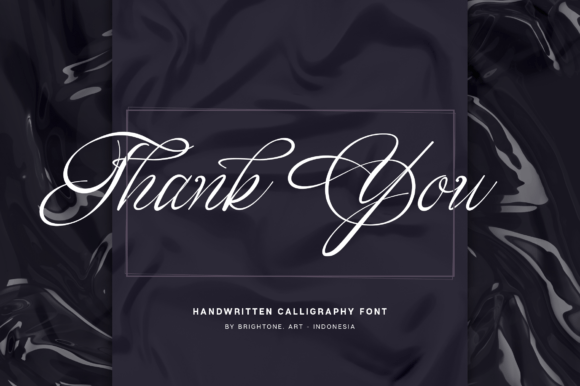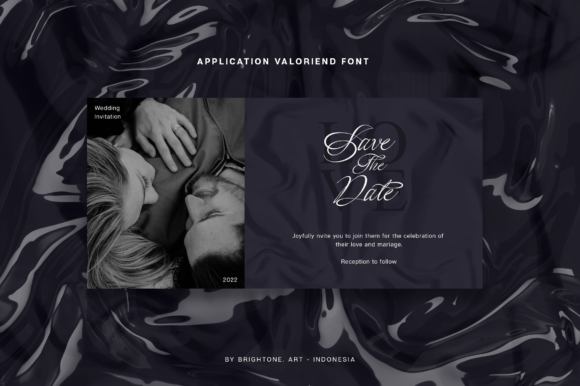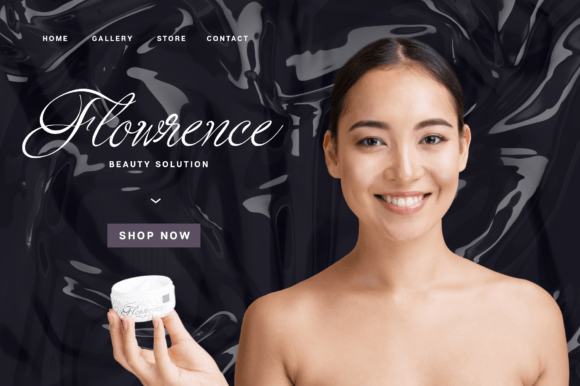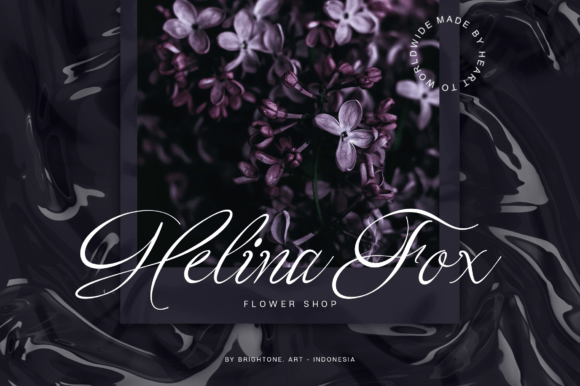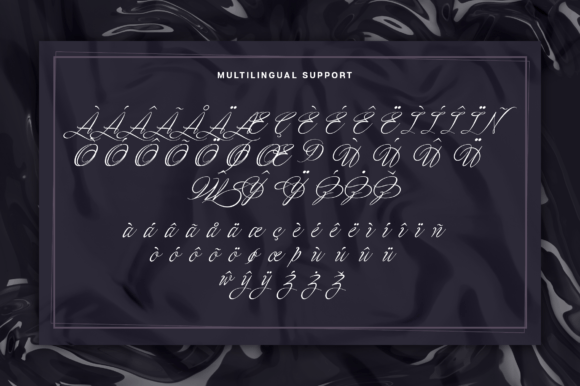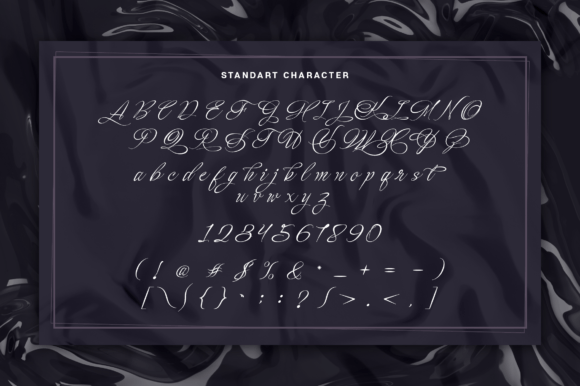
Valoriend Font
Valoriend is an exquisite handwritten script font that effortlessly combines good style with a classy touch. Its elegant and fluid design makes it a perfect choice for a wide range of creative applications, including logo lettering, logos, labels, packaging, stickers, branding, and more.
This font’s unique charm lies in its handcrafted aesthetic, adding a personal and human touch to any design it graces. Whether you’re creating a logo that represents your brand identity or designing packaging for a premium product, Valoriend adds a touch of sophistication and creativity to your projects.
One of the key strengths of Valoriend is its versatility. Its graceful curves and flowing strokes allow it to adapt seamlessly to different design contexts. Whether you’re working on a vintage-inspired label or a modern and minimalist logo, Valoriend enhances the visual appeal of your creations, making them memorable and impactful.
By choosing Valoriend for your creative endeavors, you’re not just selecting a font; you’re investing in a design element that elevates your work to a higher level. Its ability to convey elegance and style makes it a popular choice among designers who appreciate the power of well-crafted typography.
Incorporating Valoriend into your designs brings a touch of sophistication and a sense of artistry. It adds character and personality to your branding, allowing your audience to connect with your message on a deeper level. Whether you’re designing a label for a high-end product or creating a unique sticker that catches the eye, Valoriend provides the perfect blend of style and class to make your projects truly outstanding.
So, embrace Valoriend in your creative projects and let its handwritten charm enhance your designs. With this font, you can create visually stunning and impactful pieces that leave a lasting impression, setting your work apart and making it truly unforgettable.